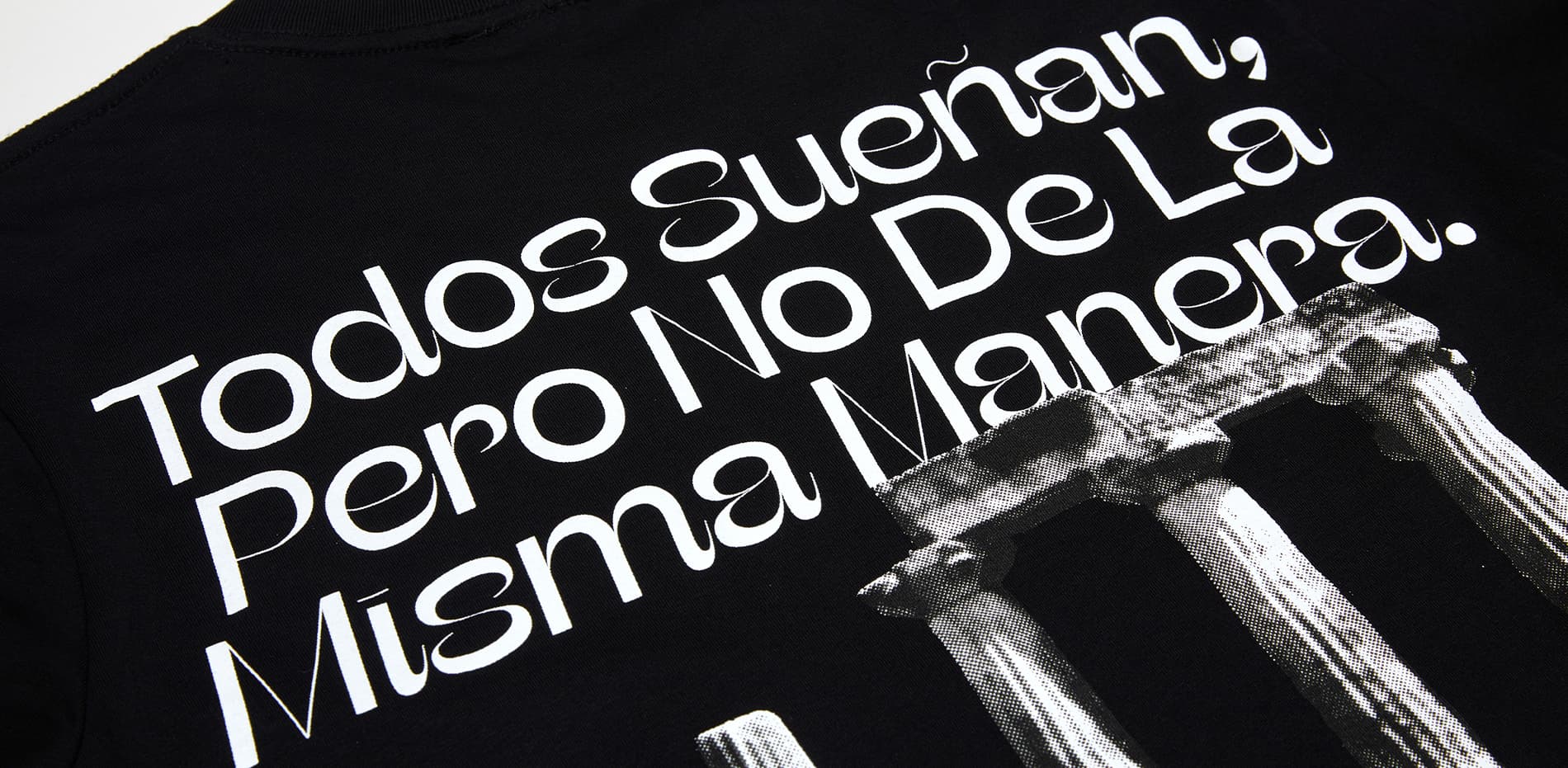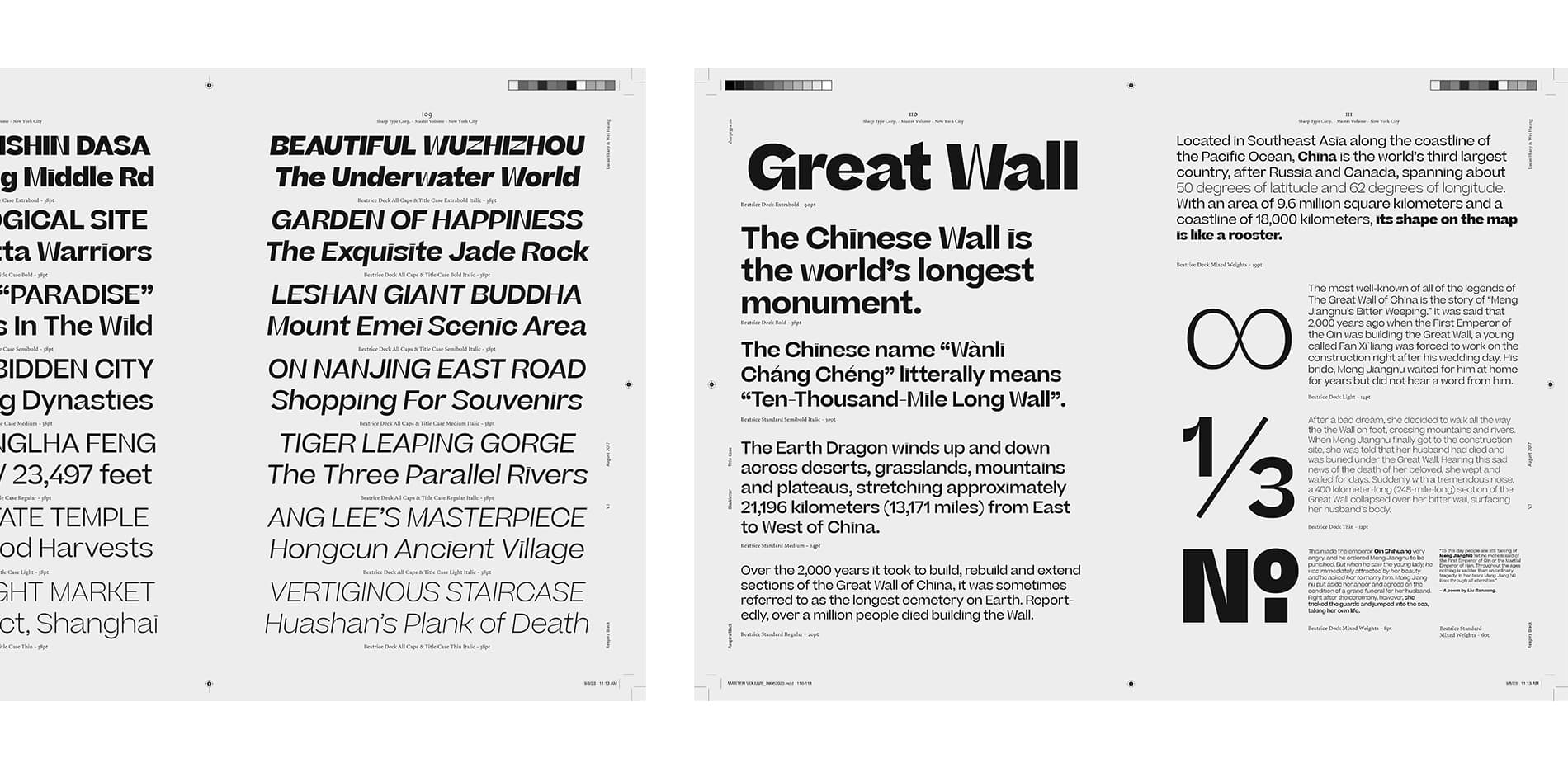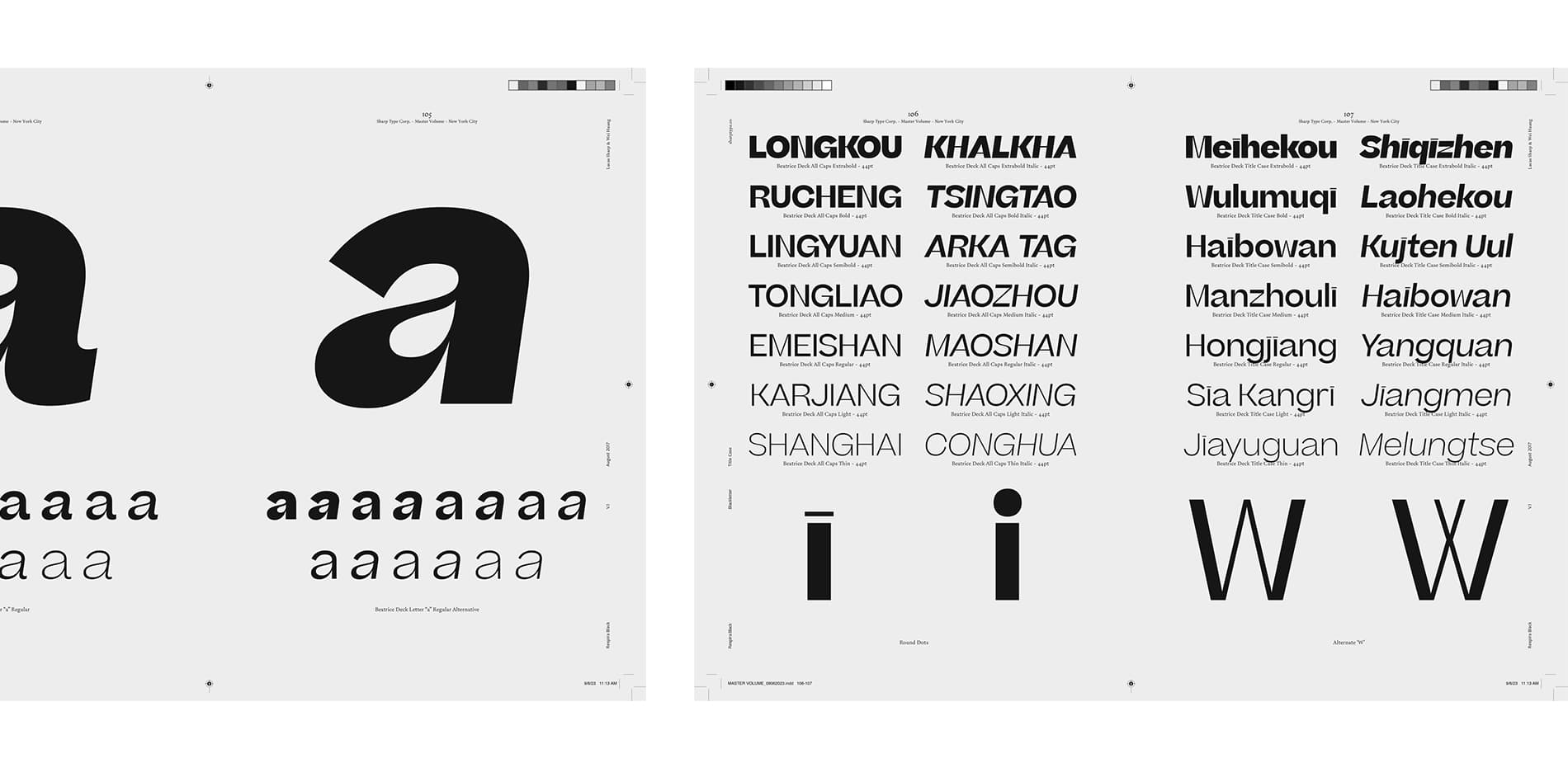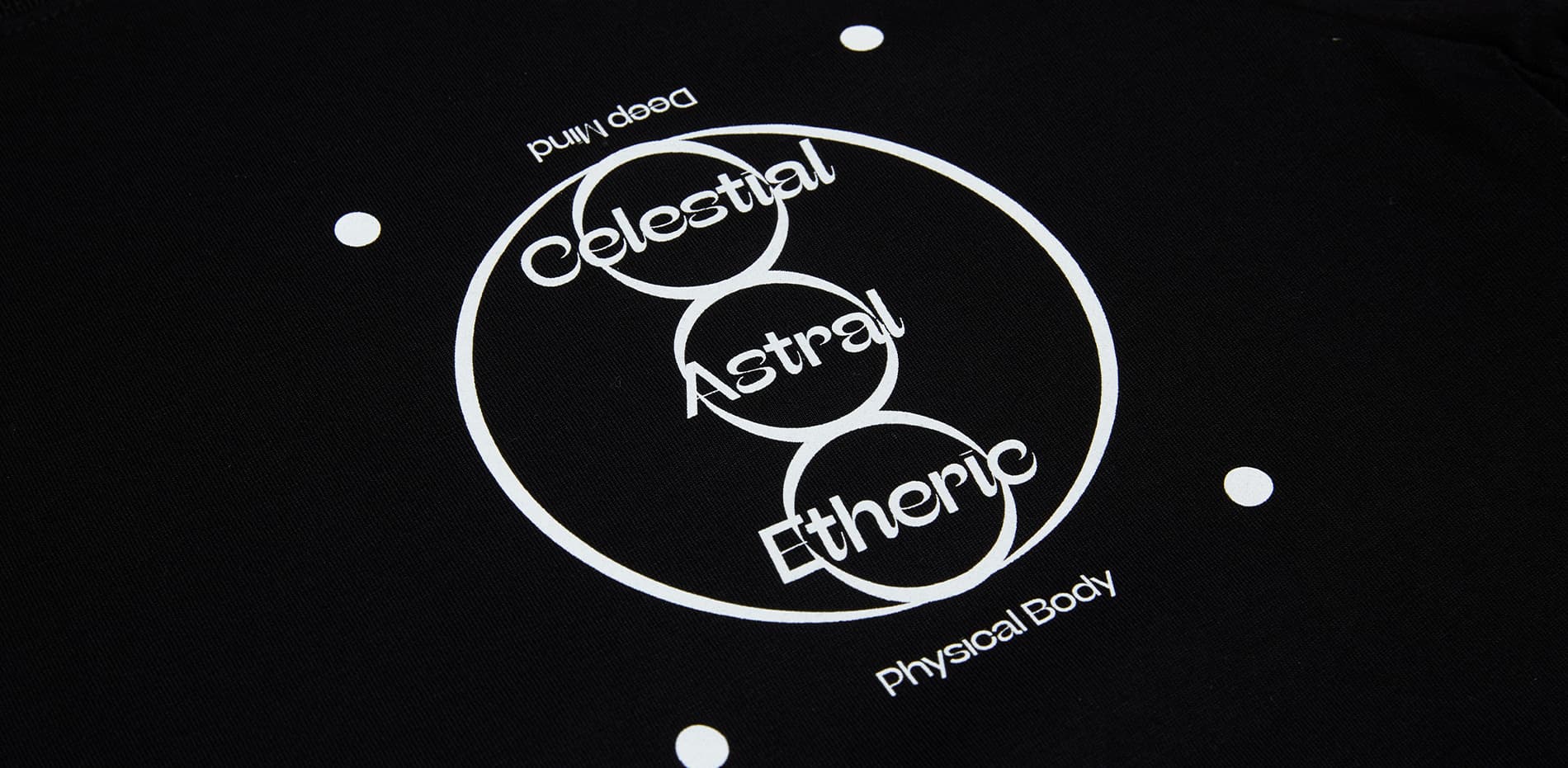
About Beatrice
Beatrice is a new kind of typeface. The family is an exploration of contrast methodologies, combining various aspects from the canon expansionist systems, inverted contrast, and the contrast behavior of grotesks. These methodologies were dissected and used as cornerstones in creating our own system. When it was first released in 2018, Beatrice landed in largely unexplored territory, and the bar it set remains today. Built upon the foundation of the American Gothic and utilizing tight-not-touching spacing, the Beatrice superfamily features a robust set of weights across four optical sizes. Our iconic Display cut offers the highest head-turning contrast; use the Standard cut for all high-function-low-contrast needs; our newest additions, Headline and Deck, smoothly click into place between the original two sizes, offering a more complete spectrum of applications.
Beatrice Construction
Contrast methodology is the system that determines how the thick and thin strokes of a letterform are applied to the skeleton. In this case, contrast is not determined purely for the purpose of mitigating the darkening effects of stroke intersections, nor is it simply based on an implied stroke ductus. With Beatrice, the contrast methodology is something of a novelty, a system we refer to as “Internal Contrast.”
The idea is simple. Every letter has an inside and an outside. With the Internal Contrast system, stroke emphasis is determined by the location of the stroke in relation to the centerpoint of the letter-shape: outer strokes maintain the heavy stroke weight and the “internal” strokes take on the hairline function, while the intersections of strokes and bowls are pinched in classic sans-serif fashion. Functionally, the combined effect creates a texture of thicks and thins that behave somewhere in-between a high-contrast expansionist sans and a reverse-contrast typeface. The aesthetic result is unique, to say the least.
In 2018, we released Beatrice Display and Standard with the goal of eventually offering a fuller family. With invaluable assistance from Inga Plönnigs and Kia Tasbihgou, Lucas and Connor Davenport have been quietly plugging away at the Headline and Deck styles ever since. Now, in the summer of 2022, they’re finally ready for release. Taken as a whole, the Beatrice superfamily makes full use of the wide spectrum of optical sizes defined by the extrema of Display and Standard. All four styles share a common framework and contrast logic, with point sizes broadly determining each subfamily’s application.
Optical Sizes
Beatrice Display is the flagship of the family. It's a visual oddity, instantly indelible, and a striking example of the Internal Contrast methodology. In addition to its notably high contrast, the extremely cozy spacing, finely wrought apertures, and dramatic hairlines lend the Display an exuberance that almost lifts it off the page. Because the details demand to be seen, we don’t recommend using Beatrice Display at point sizes below 60pt.
Beatrice Display’s incredibly fine hairlines start to hit legibility issues around the 60pt range, so we developed two complementary optical sizes to create a seamless superfamily of styles. Their function, Lucas jokes, is to bridge the “chasm of utility” left by the extremes of the Display and Standard styles. Beatrice Headline and Deck fill the void in situations where the hairlines of the Display would disappear without a stroke and a contrast higher than the Standard is desired. Headline is best utilized between 60-40pt, while Deck works well in caption and subheader settings in the 40-24pt range. If the Display is billboard and masthead size, think of Headline and Deck as your choices for smaller storefront signage, magazine captions, pull quotes, and smaller breakpoints.
Stylistically, Beatrice Standard is comparatively restrained and could be mistaken for a standard grotesk even though it maintains its novel Internal Contrast. While the Beatrice Standard family is built from the same framework as Beatrice Display’s roman, it has a much lower contrast, which provides the superfamily with both a small optical size, as well as a more stylistically restrained sans serif that has a wide range of uses
Italics
Beatrice’s italics are also notable. When Lucas first began drawing the roman forms of Beatrice Display, he set out to create a new set of rules. With the italics, these rules were bent in new directions and sometimes broken altogether by unconventionally processing the translation and rotation of the stroke ductus. The Display and Headline’s true italics are distinguished by their unique swash capitals and expressive lowercases, reminiscent of cursive lettering. Throughout, the calligrapher's hand is ever-present, even though the tools and techniques remain deliberately abstracted and obscured. Deck and Standard’s italics are designed as straightforward corrected slants of their Roman counterparts due to their lower contrast and point size application. Finally, in order to maintain a consistent production logic within the superfamily, Display and Headline also contain alternate lowercase and uppercase forms that adhere to the construction style of the slanted roman and are accessible via a stylistic set. This was done not just for the sake of completeness, but also in anticipation of a future variable Beatrice font.
Todos Sueñan
For the initial release of Beatrice in 2018, Justin Sloane designed a run of screen-printed shirts. He was inspired by his time staying with us at our former offices in the historic Albaicín neighborhood in Granada, Spain, which overlooks the palace of Alhambra. We’ve made a new black version for the Beatrice superfamily release. The graphic includes a quote from British philosopher T.E. Lawrence, also known as Lawrence of Arabia. Buy here.
The typeface is dedicated to its designer Lucas Sharp’s mother, Beatrice Benjamin, who continues to seek beauty, embrace originality, and has never let convention hold her back. Initially released 2018; updated version released 2022.